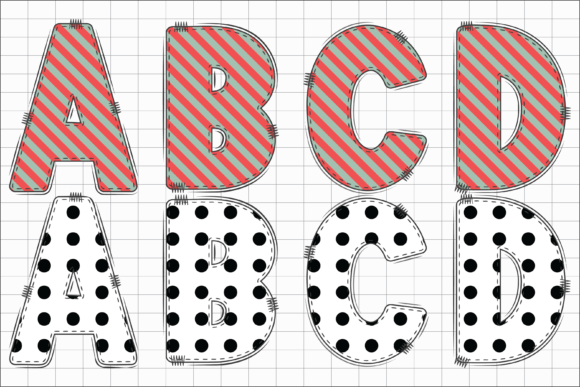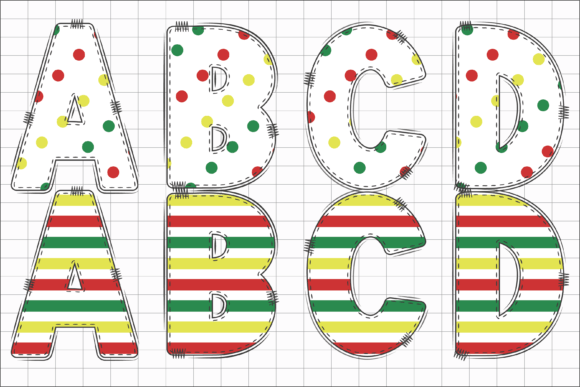
Introduction to Christmas Clipart Font
As you sit surrounded by twinkling lights, hot cocoa in hand, and a stack of festive paper, you know it’s time to get creative. The holiday season is the perfect excuse to let your imagination run wild and craft something truly special. But, let’s be honest, sometimes a little extra magic can make all the difference. That’s where the Christmas Clipart Font comes in – a delightful and festive decorative color font that will add an extra layer of joy to your holiday projects.
This font is a treasure trove of creative possibilities, and its high-quality design makes it an absolute must-have for any designer looking to elevate their Christmas-themed crafts, cards, and designs. With its transparent background and versatile design, the Christmas Clipart Font is a valuable resource for anyone seeking to add a touch of whimsy and fun to their projects.
Whether you’re a seasoned pro or just starting out, this font is sure to become a trusted design companion, and with its free download available, you can get started right away. So, why settle for ordinary when you can have extraordinary? Dive into the world of the Christmas Clipart Font and discover a whole new level of creative potential.
Key Features of Christmas Clipart Font
- High-quality design resource ideal for creative projects, including Christmas cards, gift tags, and other holiday-themed materials.
- Unique and festive design elements, such as holly leaves, snowflakes, and Christmas trees, perfect for adding a touch of holiday cheer to any project.
- Perfect for designers, crafters, and DIY enthusiasts looking for a fun and creative way to add a personal touch to their projects.
Honest Review: Christmas Clipart Font
I recently had the chance to work with the Christmas Clipart Font, and I must say it’s a fantastic design resource for anyone looking to add some festive flair to their creative project. The high quality of the font is immediately noticeable, and I appreciate that it comes with a free download option.
Here are some of the things that work well with this font: ✨
- Large collection of holiday-themed icons and graphics
- Transparent background option for easy editing
- Easy to customize and resize
However, I did encounter a few limitations: ⚠️
- Some of the icons may be a bit too generic for more unique or personal designs
- Lack of more complex or intricate designs
Overall, I’m impressed with the Christmas Clipart Font. It’s a great addition to any designer’s toolkit, and the free download option makes it accessible to designers of all levels. Whether you’re working on a holiday-themed project or just need some inspiration, this font is definitely worth checking out.
Tips for Getting the Most Out of Christmas Clipart Font
Use the font in conjunction with other design elements to create a cohesive and visually appealing design. Experiment with different font sizes and colors to add depth and interest to your project. Finally, don’t be afraid to get creative and try new things – the Christmas Clipart Font is a versatile design resource that can be used in a variety of ways.
The Christmas Clipart Font is a versatile design resource that can be used in a variety of projects, including:
- Christmas cards and invitations
- Holiday-themed posters and flyers
Q: Can I customize the Christmas Clipart Font to fit my design needs?
Yes, the Christmas Clipart Font is fully editable, allowing you to customize it to fit your design needs. You can use design software like Adobe Illustrator or Photoshop to modify the font, add custom colors or effects, or merge it with other design elements. The font’s transparent background also makes it easy to layer it with other design elements or use it as a background image.